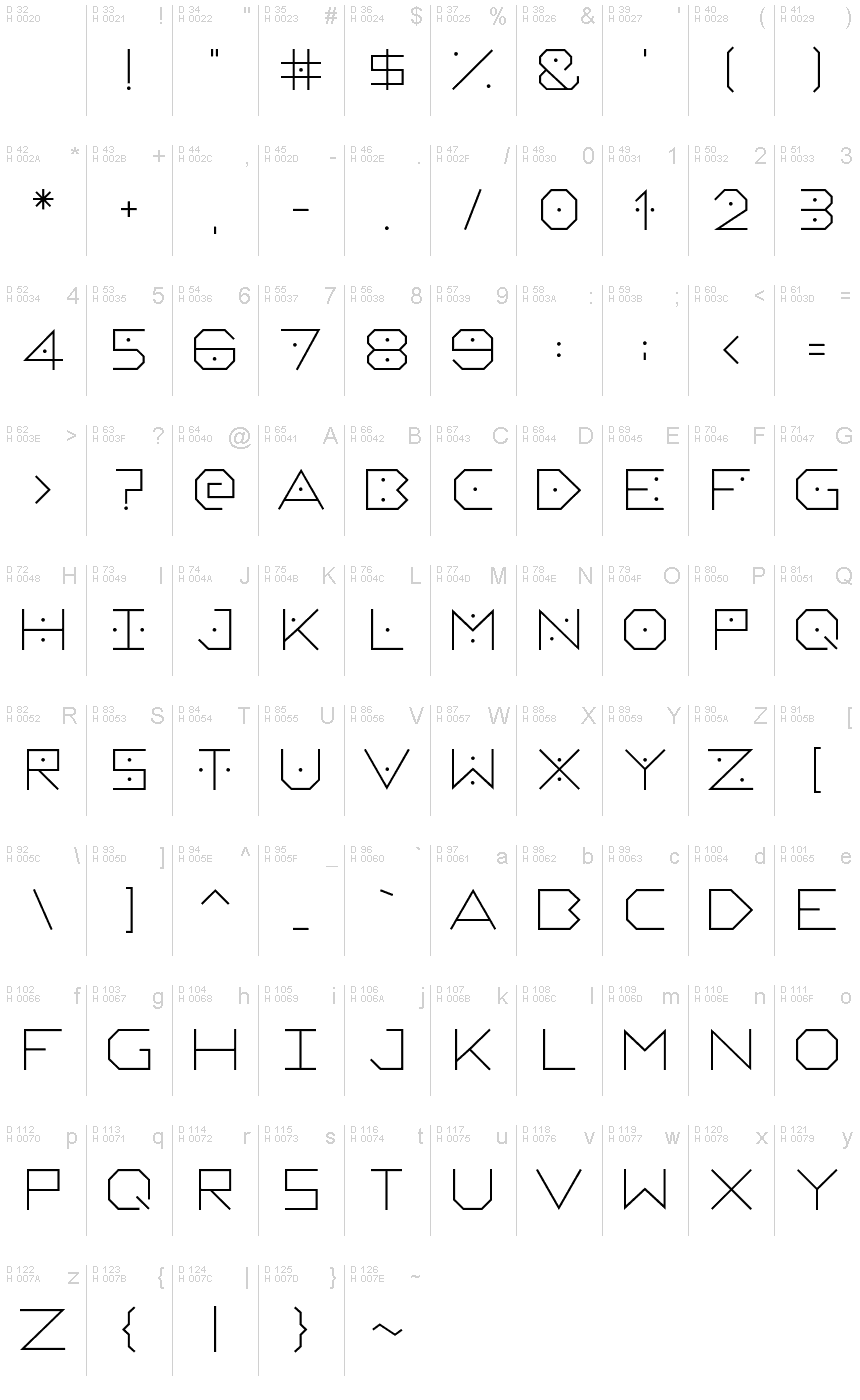
Meanderlux Regular
Custom font initially created for Quodega's Post-Rock Album 'The Meanderlux Vessel'
Uppercase includes all letters with the use of dots.
Lowercase are uppercase letters with the dots removed.